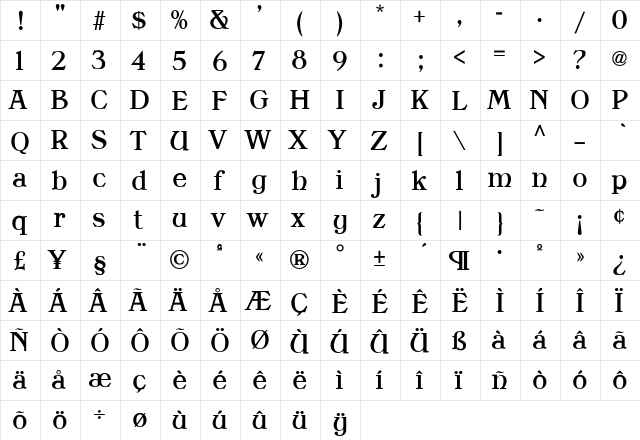
PoynderBook Regular
Design Context for PoynderBook Typeface
PoynderBook is a composed and adaptable typeface that performs quietly and consistently across a wide range of design contexts.